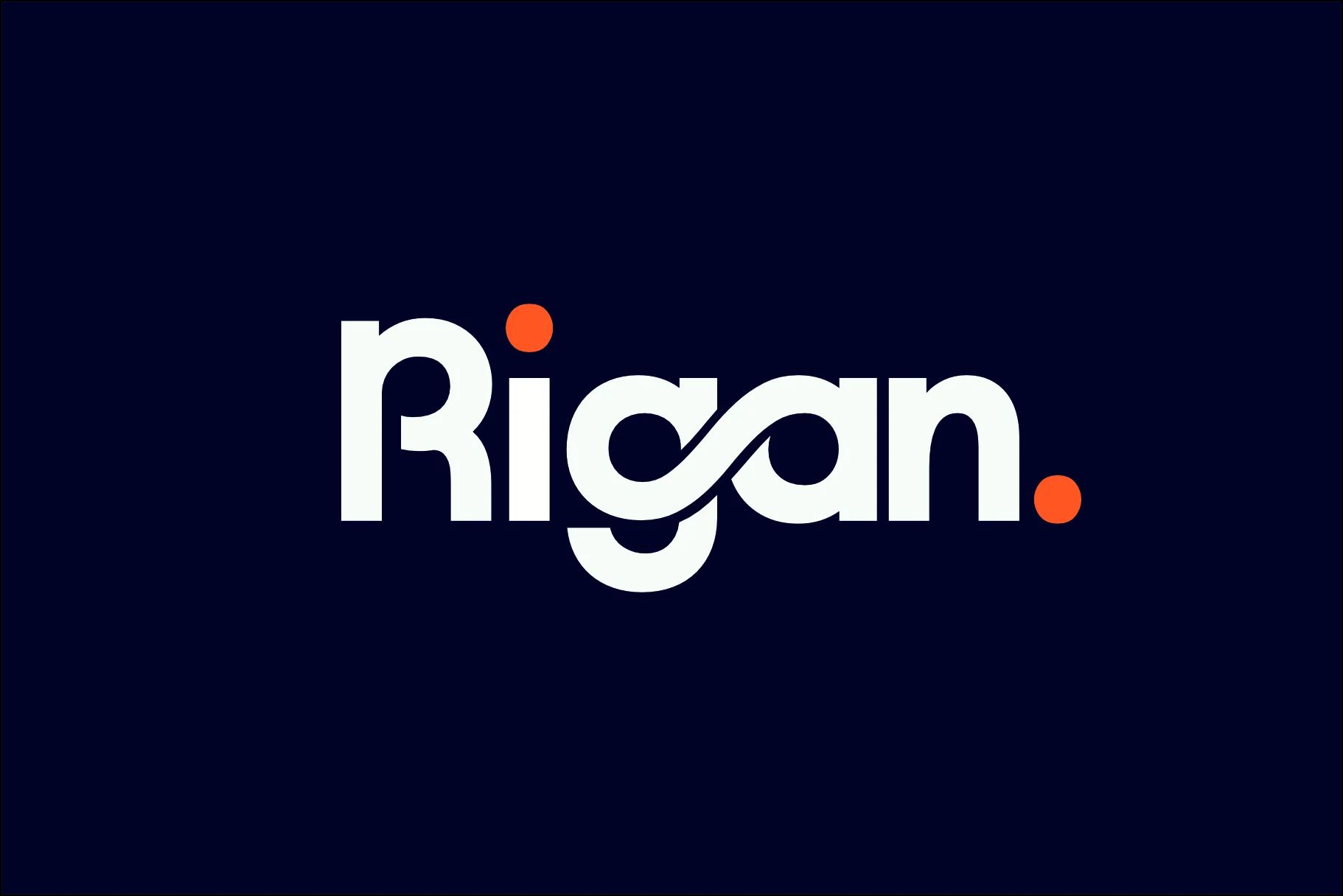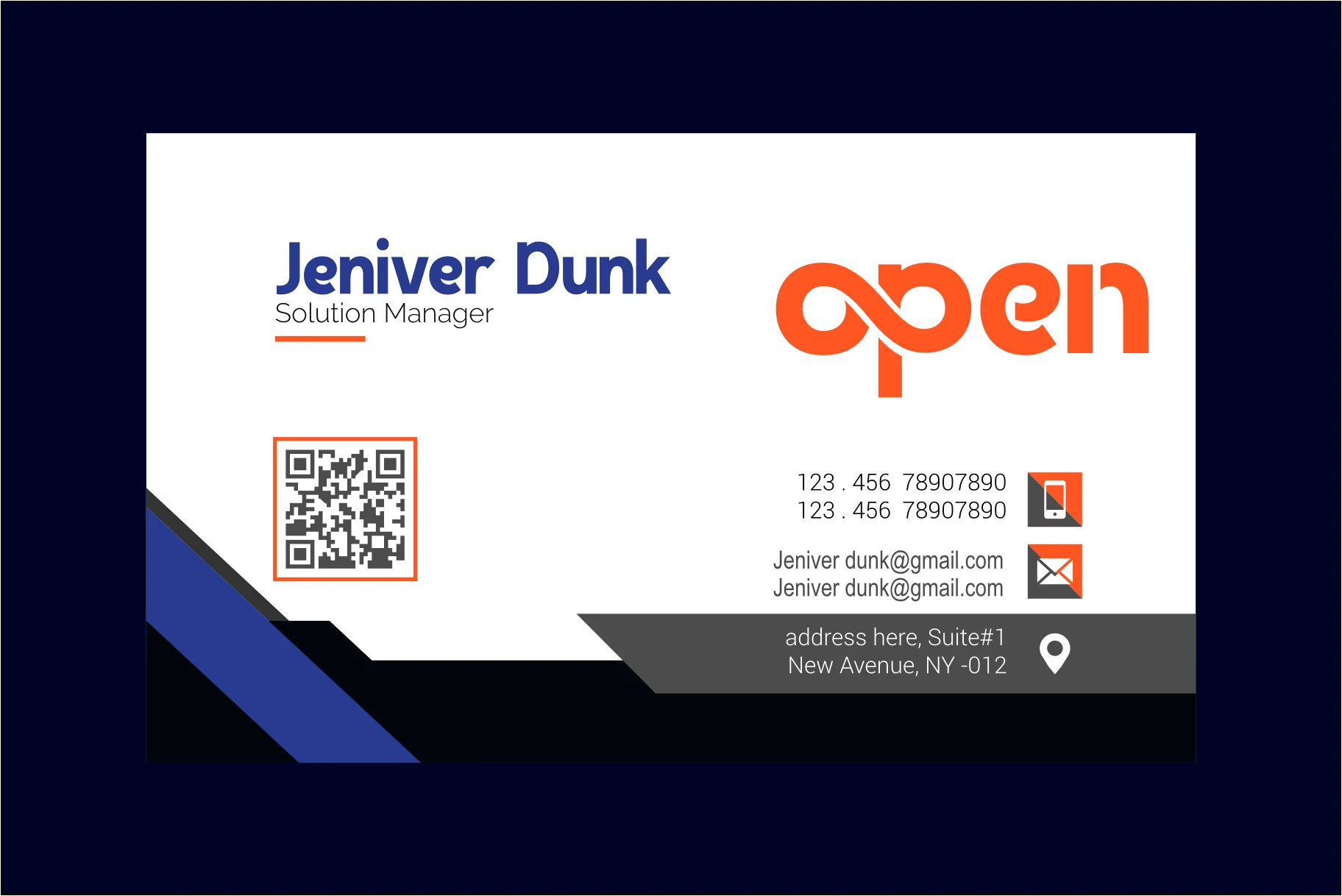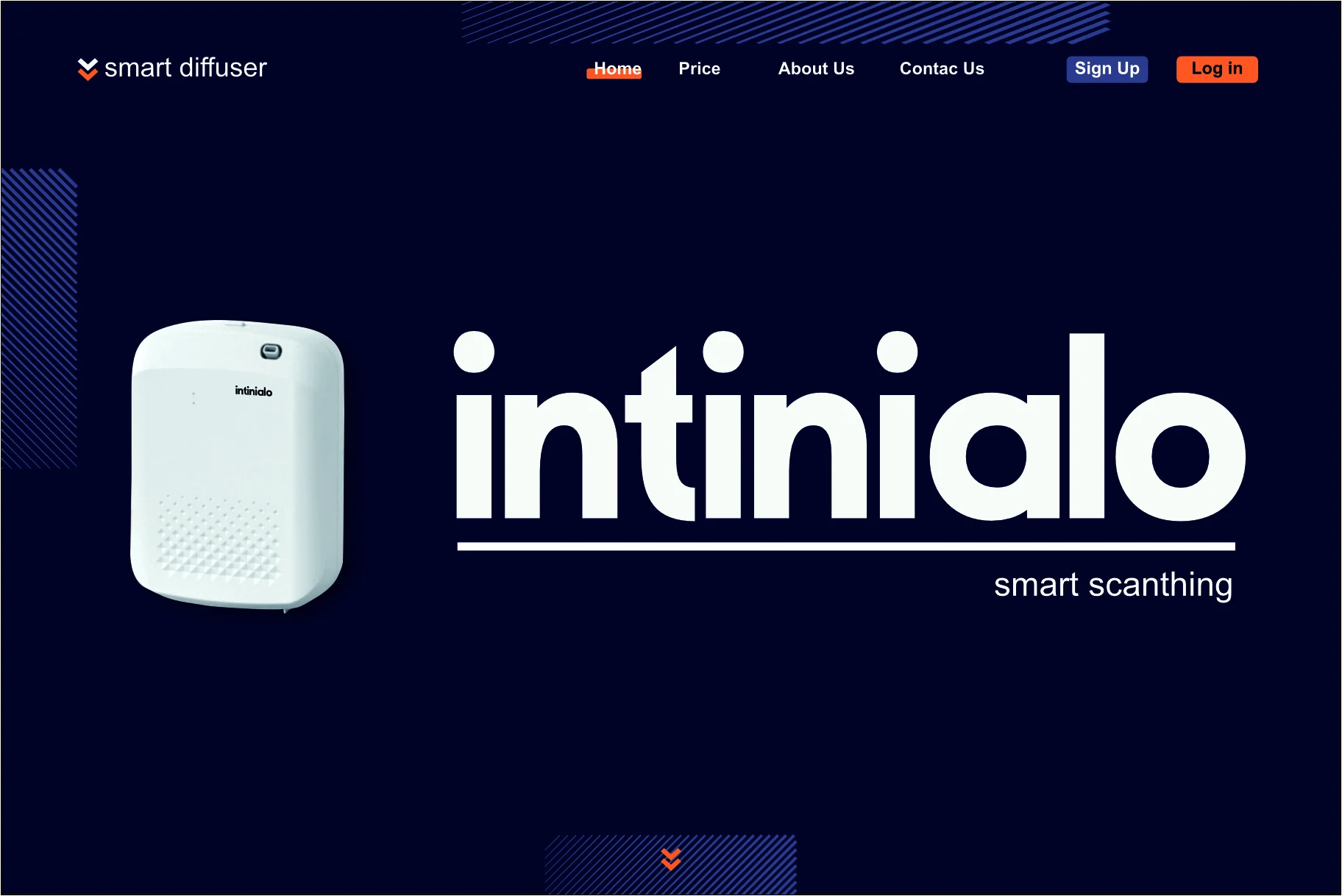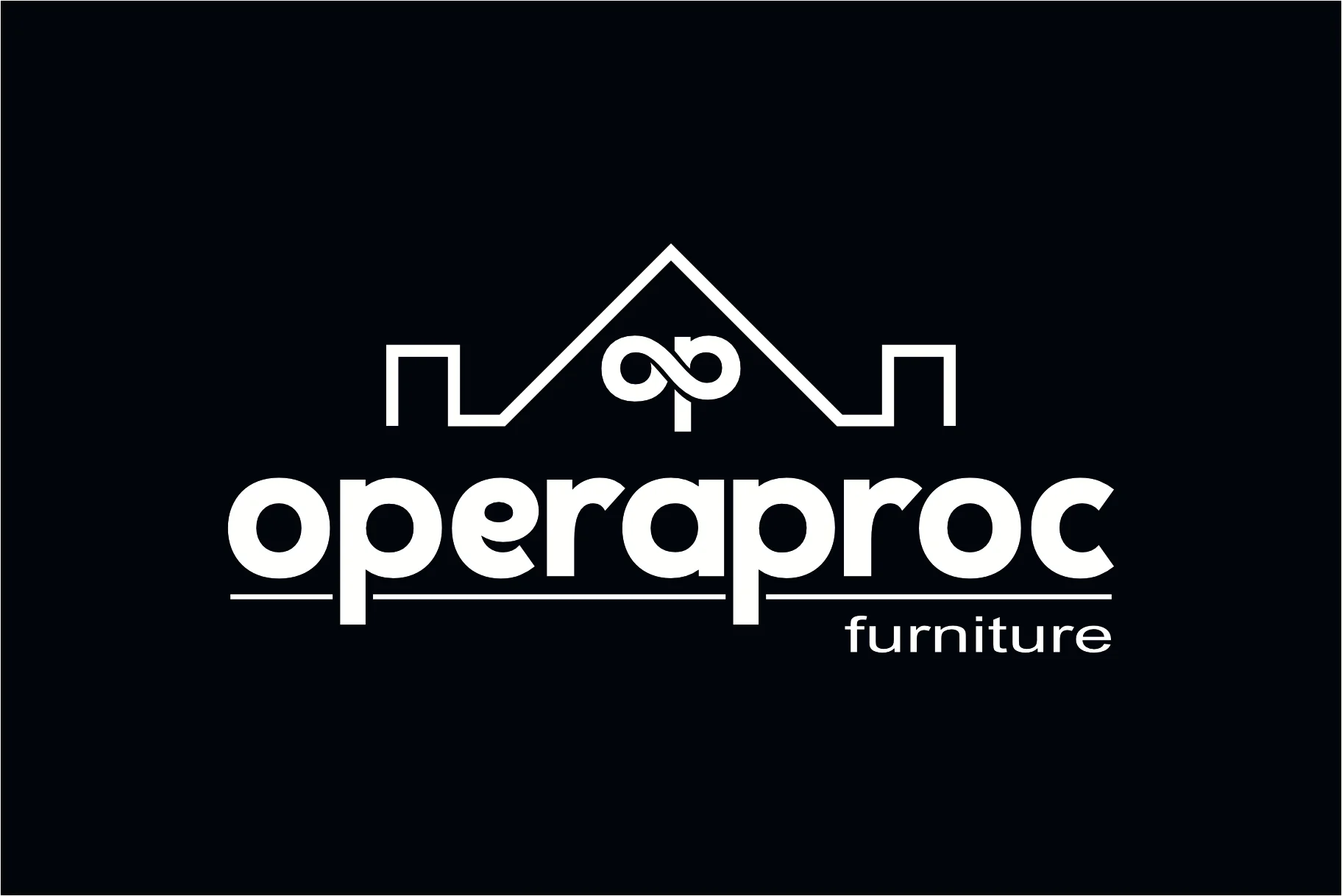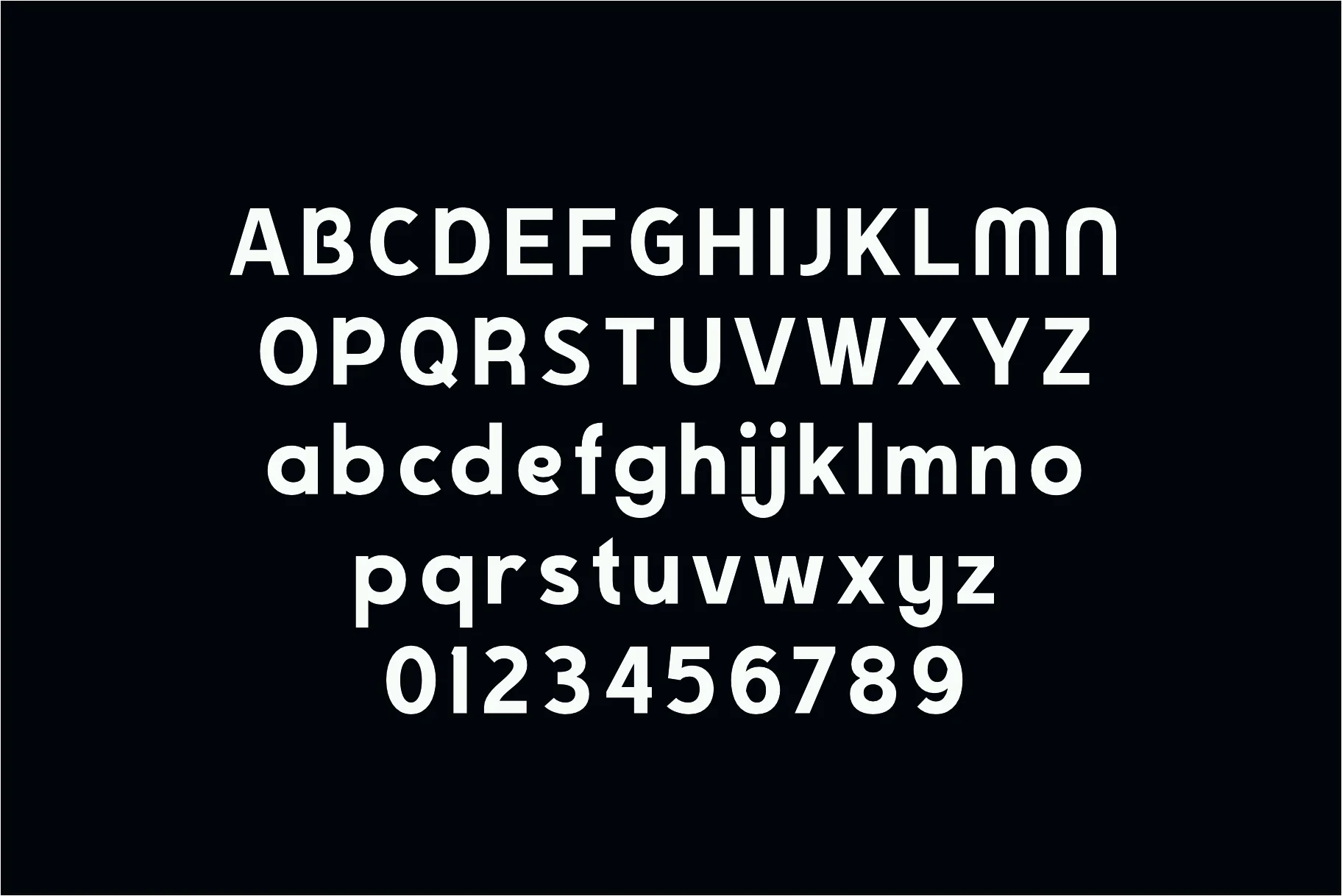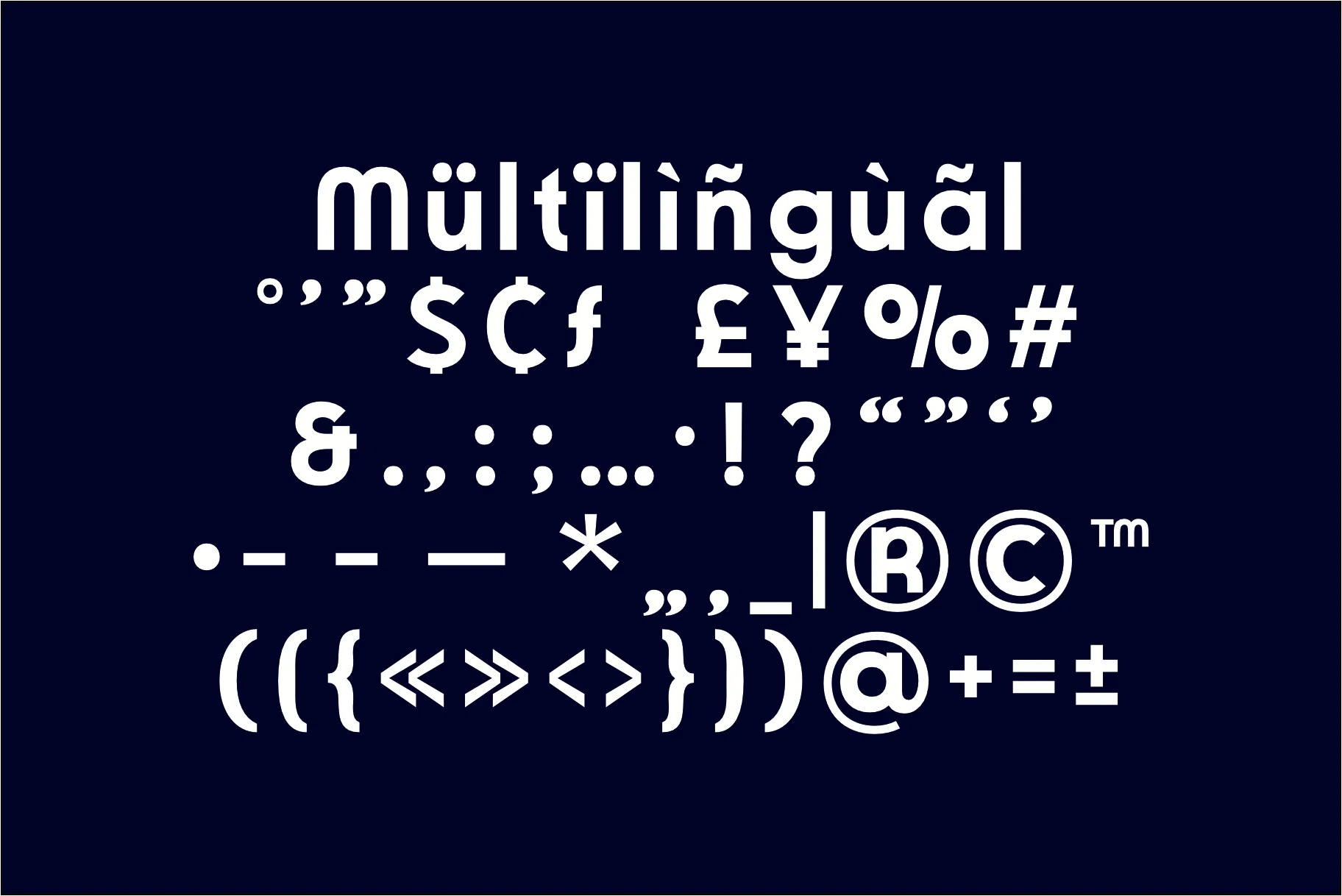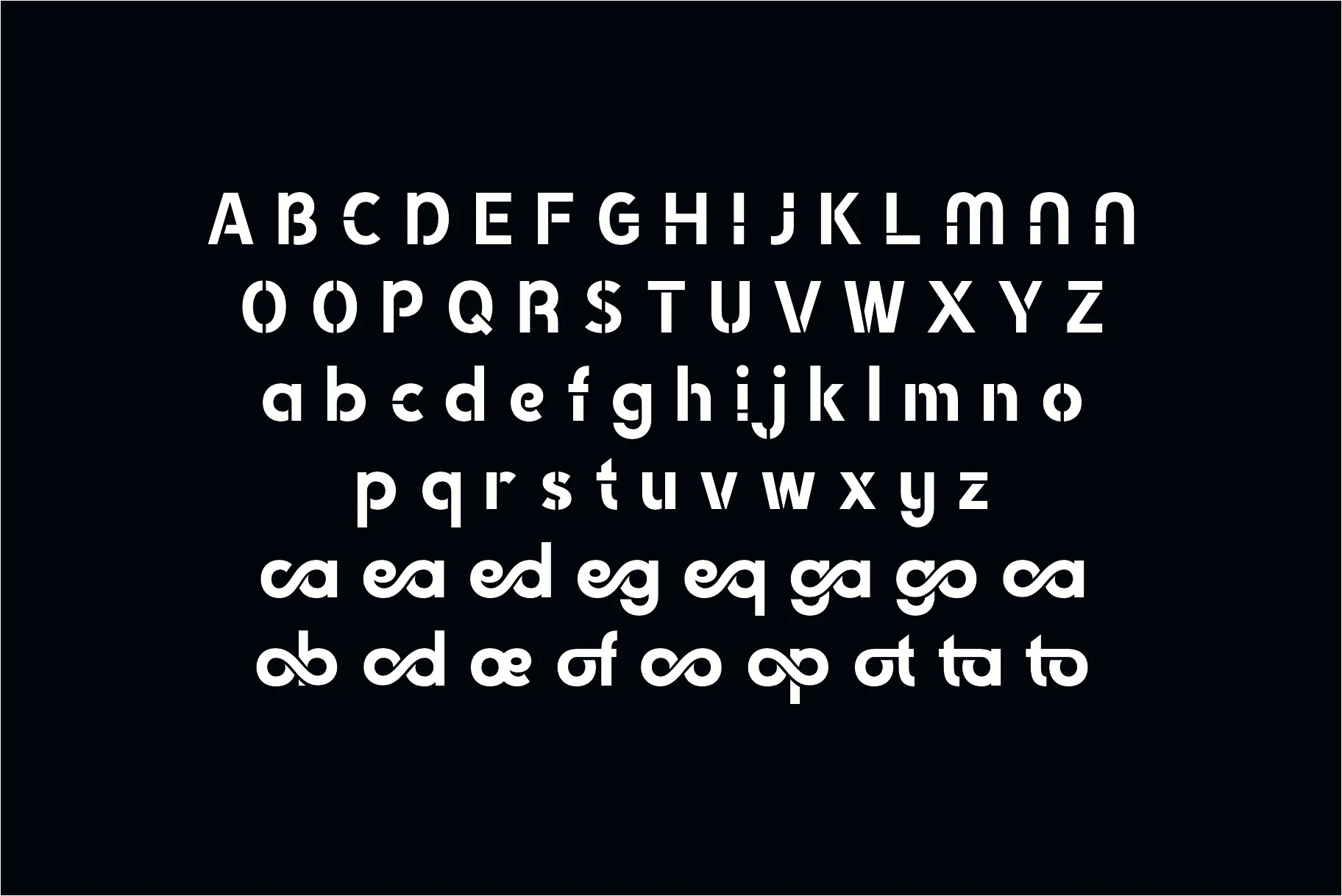
Rigan
Rigan is a bold, modern, and technology-inspired font specifically designed for impactful branding and logo creation. It features geometric shapes, clean lines, and a minimalist aesthetic that conveys innovation and progress. The font is characterized by its precise kerning and spacing, making it ideal for headers, titling, and digital interfaces. A notable feature in this logo is the interlocking ligature between the lowercase "g" and "a," which adds a sophisticated, futuristic edge.